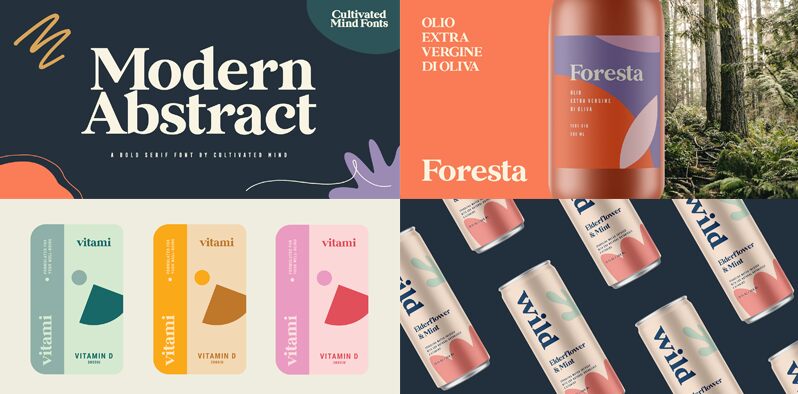
Modern Abstract Serif font by Cultivated Mind Fonts blurs the lines between classic and contemporary with an elegant and sophisticated bold serif design. Carefully designed, Modern Abstract was made to impress with its high level of simplicity and legibility for both big and small sizes since its excellent character structure rendering allows it.
This free serif font can add an element of guarded sophistication to posters, flyers, magazines, books covers, websites, applications, print ads, social media posts visuals yet longer blocks of body text.
Modern Abstract
Modern Abstract Serif
Cultivated Mind
Cindy Kinash
Modern Abstract Regular is a font by Cultivated Mind, designed by Cindy Kinash in 2023.